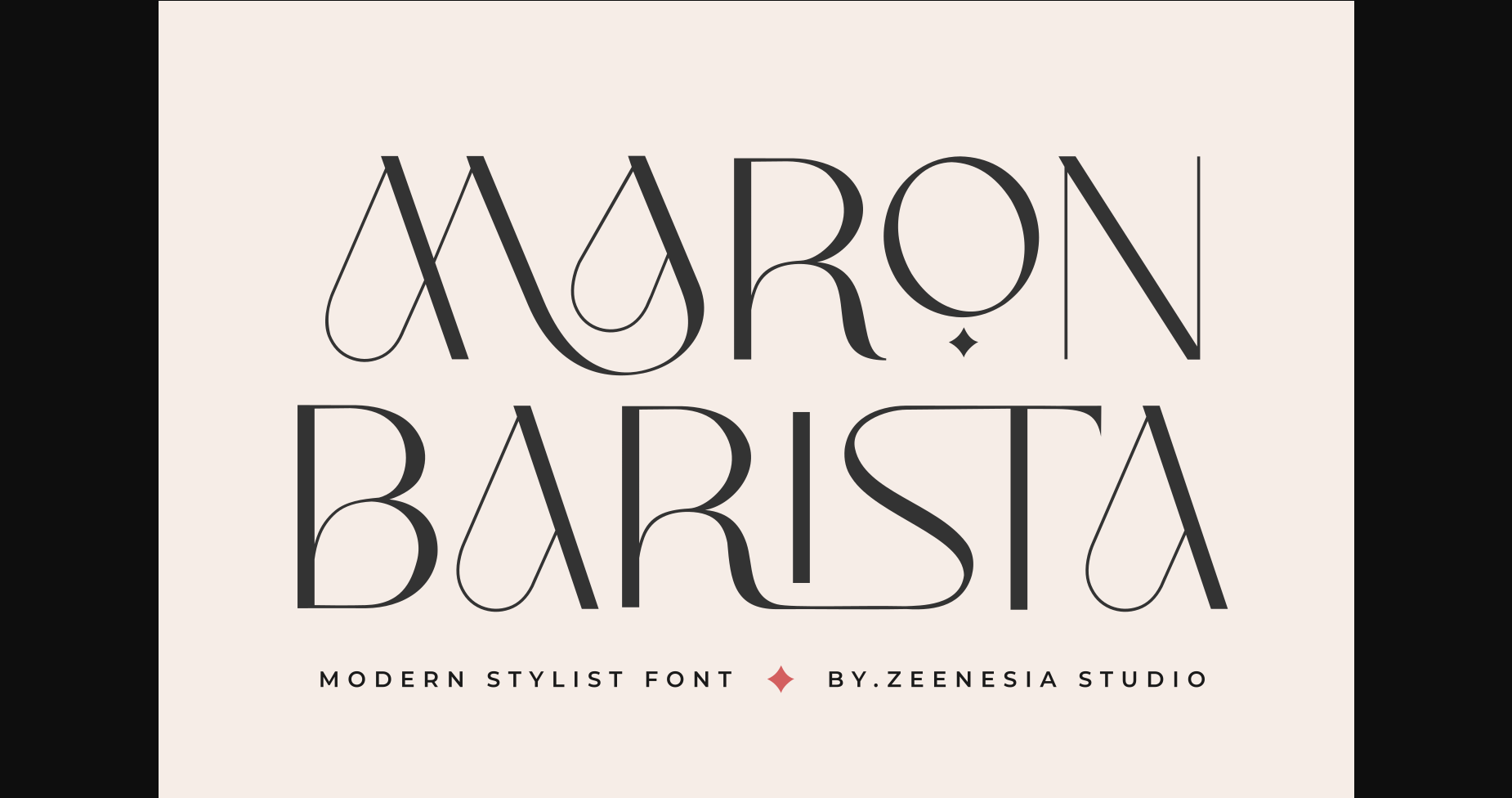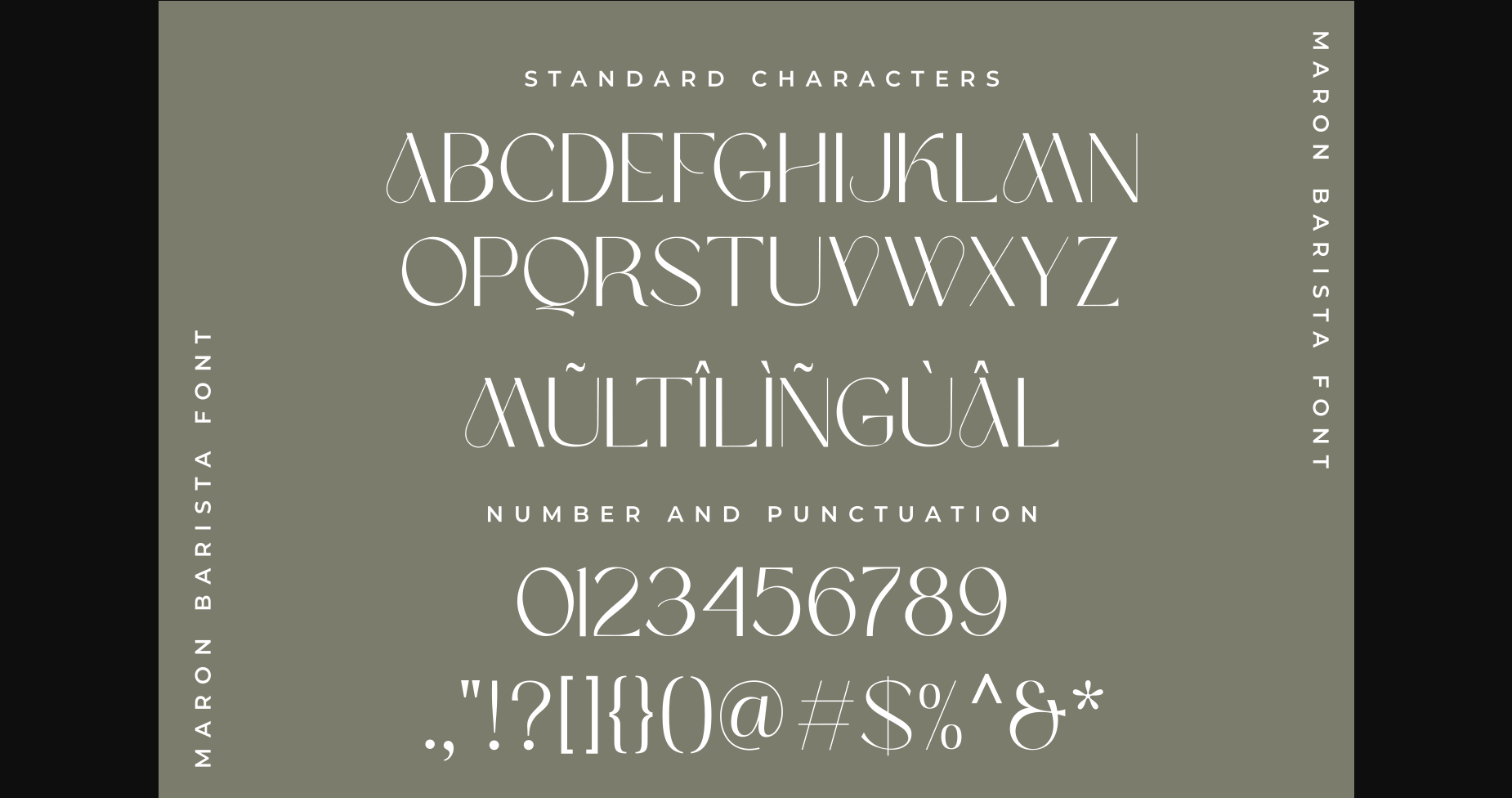
About Maron Barista Font
Maron Barista is a beautiful and smooth sans serif font created by a romantic and lovely look. It is perfect for greeting cards, wedding invitations, posters, logotypes, product branding, and much more.